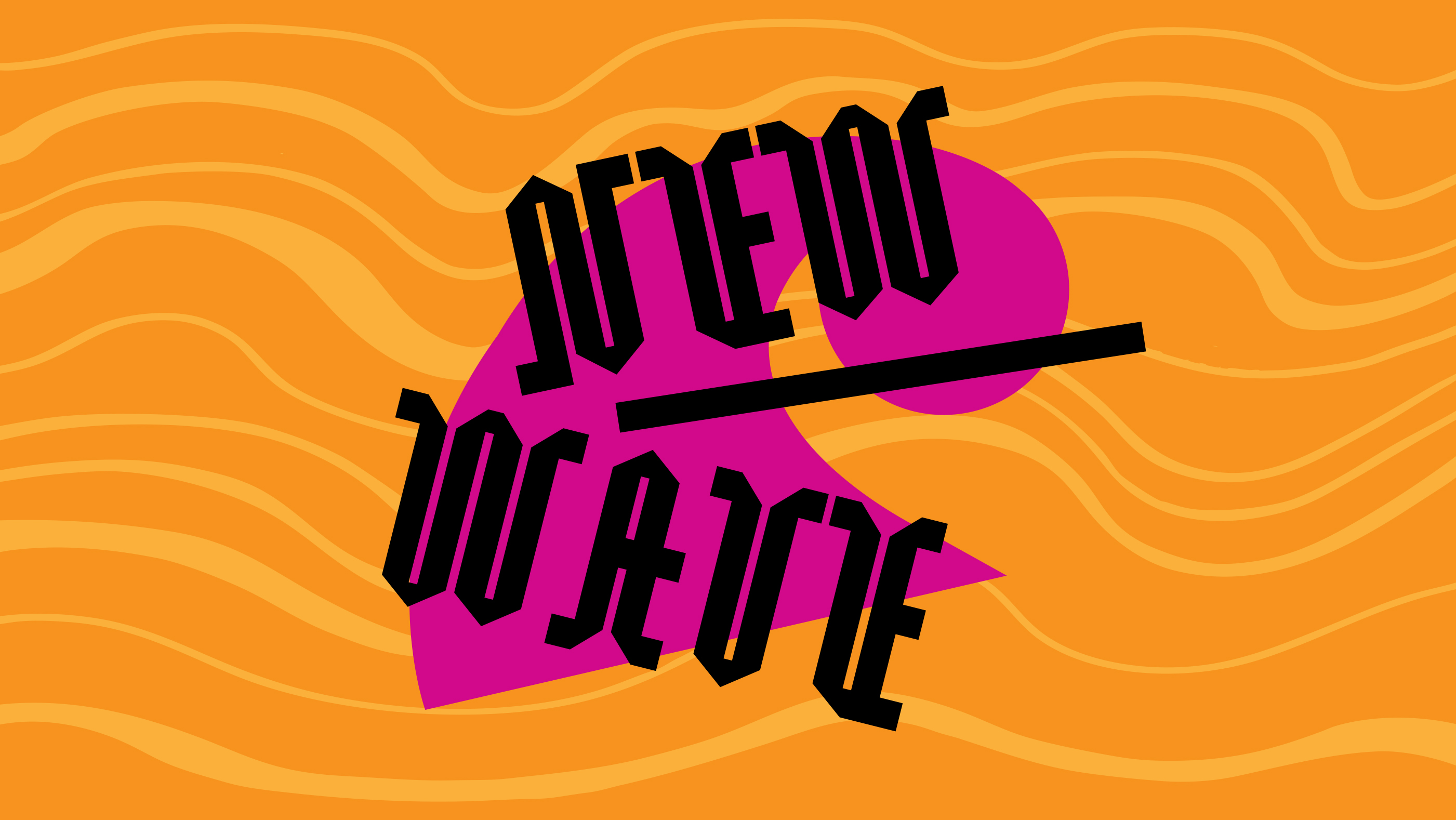
Drifter
I love the idea of traveling the world and being inspired by the people, shapes, and colors you encounter. The design comes together like a digital collage.